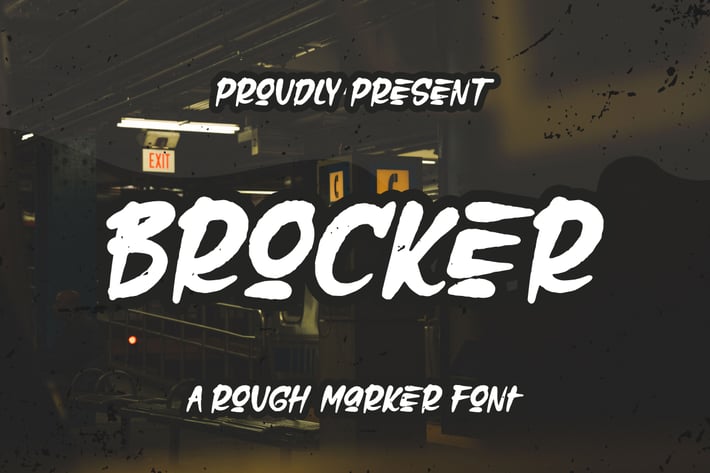
Brocker - Rough Marker Font
Brocker a Rough Marker Font, This font is made with a high premium quality level which you can use as flyers, quotes, posters, banners, packaging, merchandise, logotypes and much more.